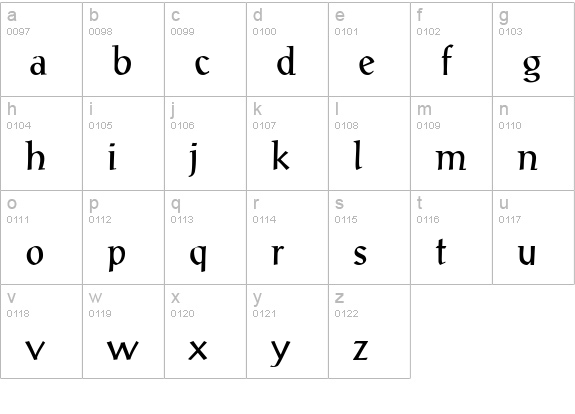
Antiqua Light SSi Light Font Details
Antiqua Light SSi Light is a refined, elegant variant in the Antiqua typeface family \xE2\x80\x94 well suited to elegant body text, refined sub-headings, and luxury branding.
Antiqua Light SSi Light is a timeless and elegant font that exudes sophistication and refinement. Its delicate serifs and graceful curves make it perfect for projects that require a touch of classic beauty. This font is versatile and can be used for various design purposes, from invitations to branding to editorial layouts. The best part about Antiqua Light SSi Light font is that it is completely free to download. You can easily access this stunning typeface at FontsMarket.com, where you can enhance your designs with this premium-quality font without any cost. Whether you are a graphic designer, a blogger, or a business owner looking to elevate your visual identity, Antiqua Light SSi Light font is the perfect choice for adding a touch of sophistication to your projects. Download it now and let its timeless beauty elevate your designs to new heights.